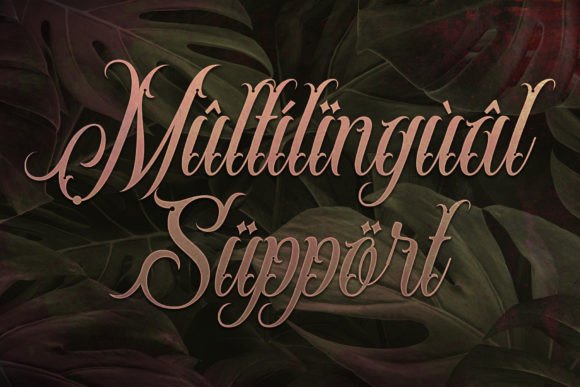
Karmaloy Font
Karmaloy is a contemporary blackletter tattoo font that feels right at home on logos, t-shirt designs, posters, flyers, and other brand identity items. Add it confidently to your projects, and you will love the results.